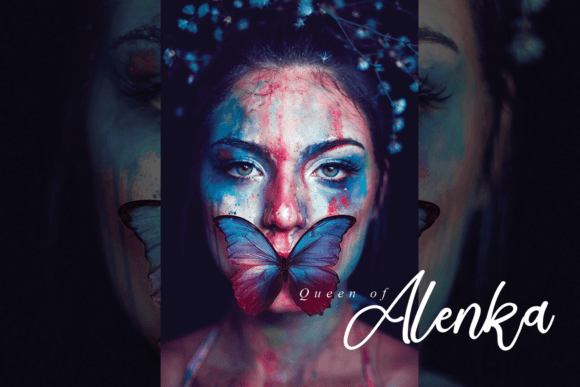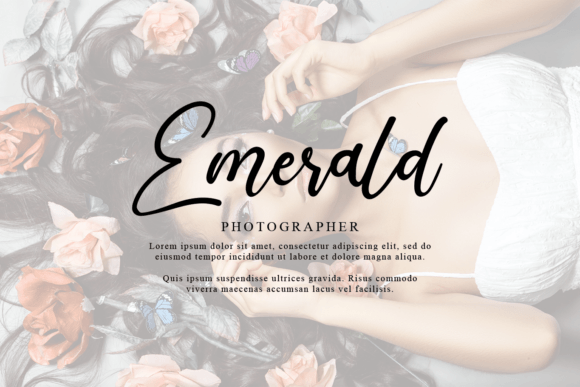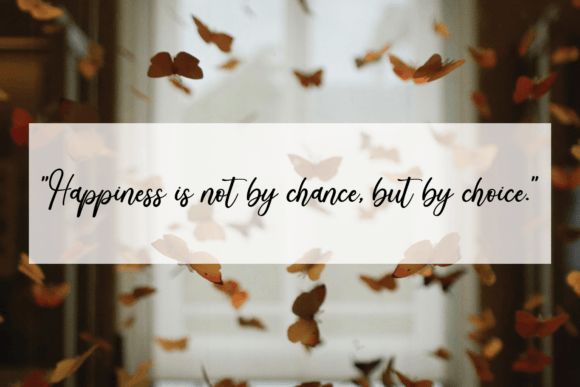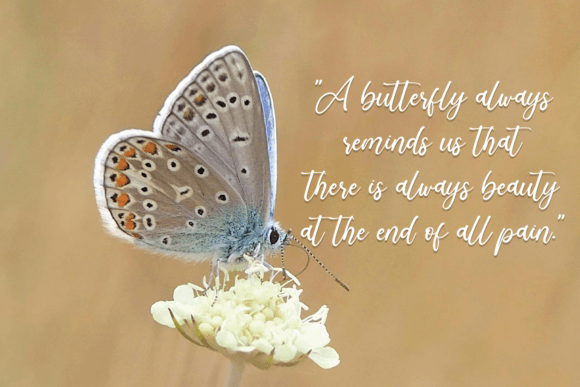
Introducing the Butterfly Font: Elevate Your Designs with Elegance and Grace
Are you searching for a font that embodies the essence of elegance and sophistication? Look no further than the Butterfly Font, a stunning handwritten script that is sure to capture your heart. With its flowing and graceful lines, this beautiful font is perfect for creating a wide range of designs, from wedding invitations and stationery to social media posts and more.
The Beauty of Butterfly Font
The Butterfly Font is a true masterpiece, boasting a chic and stylish aesthetic that is sure to leave a lasting impression. Its delicate, cursive script is reminiscent of traditional calligraphy, yet its modern and fresh approach makes it perfect for contemporary designs. Whether you’re a designer, crafty DIY enthusiast, or simply someone who appreciates beautiful typography, the Butterfly Font is sure to inspire your creativity.
One of the best things about the Butterfly Font is its versatility. Its elegant and flowing script makes it perfect for a wide range of design applications, including:
- Wedding Invitations: Create gorgeous wedding invitations, save-the-date cards, and thank-you notes that will leave your guests in awe.
- Stationery: Design beautiful stationery, including letterheads, journals, and planners, that will add a touch of elegance to your daily correspondence.
- Social Media Posts: Elevate your social media presence with eye-catching posts, quotes, and graphics that will make your followers take notice.
- Branding: Use the Butterfly Font to create a cohesive brand identity that exudes sophistication and style.
Why Choose the Butterfly Font?
So, what sets the Butterfly Font apart from other fonts on the market? Here are just a few reasons why designers and crafters are falling in love with this beautiful script:
- Unique and Handwritten: The Butterfly Font is a one-of-a-kind, handwritten script that adds a personal touch to your designs.
- Elegant and Sophisticated: Its flowing lines and delicate curves make it perfect for designs that require a touch of elegance and sophistication.
- Easy to Read: Despite its ornate script, the Butterfly Font is surprisingly easy to read, making it perfect for body text and captions.
- Highly Versatile: Use it for a wide range of design applications, from digital projects to print materials.
Tips for Using the Butterfly Font
To get the most out of the Butterfly Font, here are a few tips to keep in mind:
- Pair it with Bold Fonts: Combine the Butterfly Font with bold, sans-serif fonts for a striking contrast that will make your designs pop.
- Experiment with Colors: Try pairing the Butterfly Font with a range of colors, from soft pastels to rich jewel tones, to add depth and interest to your designs.
- Use it Sparingly: While the Butterfly Font is beautiful, it can be overwhelming if overused. Use it sparingly to add a touch of elegance to your designs.
In conclusion, the Butterfly Font is a stunning handwritten script that is sure to elevate your designs to new heights. With its flowing lines, elegant curves, and highly versatile nature, this beautiful font is perfect for designers, crafters, and anyone who appreciates beautiful typography. So why wait? Fall for the Butterfly Font today and discover a world of design possibilities!